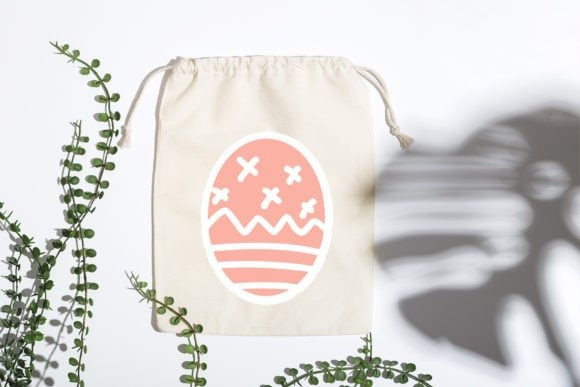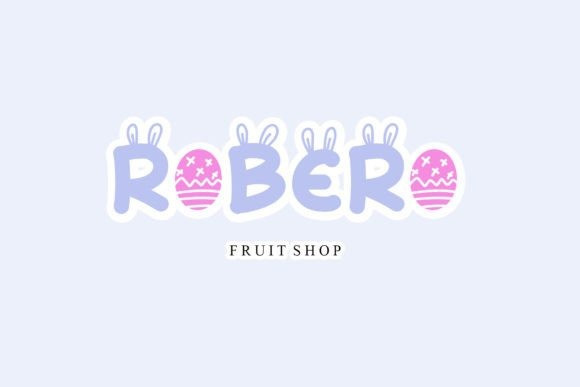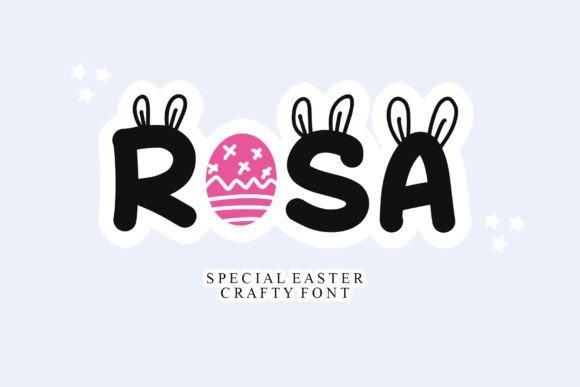
Rosa Font
Rosa Display Font is a cute and adorable display font decorated with lovely bunny ears on each letter (except for the Easter egg letter O). This crafty font is perfect for all of your Easter or spring designs.